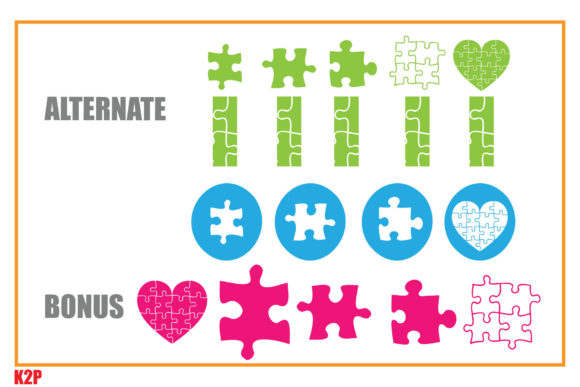
The Autism Awesome Font: A Game-Changer for Supportive Designs
I’ll never forget the moment I was working on a project to create awareness about autism. My client wanted a font that was not only visually appealing but also conveyed a sense of support and understanding. After hours of searching, I stumbled upon the Autism Awesome font, and it was love at first sight! 💕
This thick lettered and incredibly unique decorative font has been a game-changer for my design projects, particularly those related to autism awareness. In this article, I’ll share my honest review, a step-by-step guide on how to use it, and some similar font alternatives.
Honest Review: What I Love and Some Quirks
- 💯 The font’s unique and bold design makes it perfect for grabbing attention.
- ✅ The PUA encoding allows for easy access to all glyphs and swashes.
- 🎉 It’s incredibly versatile and can be used for various design projects, from posters to social media graphics.
- 🌈 The font’s thick letters make it perfect for creating visually appealing designs that stand out.
Some Quirks ⚠️
While the Autism Awesome font is amazing, there are a few things to keep in mind:
- 🤔 The font’s bold design may not be suitable for body text or small font sizes.
- ⚠️ Some users may find the font’s uniqueness a bit overwhelming, so it’s essential to use it judiciously.
The Story Behind the Font: Designer Inspiration
The Autism Awesome font was designed with the intention of creating a unique and bold font that would help bring awareness and support to people with autism. The designer’s inspiration came from the need to create a font that would stand out and convey a sense of understanding and acceptance.
A: PUA (Private Use Area) encoding is a way of encoding fonts that allows for easy access to glyphs and swashes. This means that you can access all the special characters and features of the font without having to use complicated keyboard shortcuts.
Q: Is the Autism Awesome font suitable for body text?
A: While the Autism Awesome font is amazing, it’s not suitable for body text due to its bold design. It’s best used for titles, headings, or emphasis.